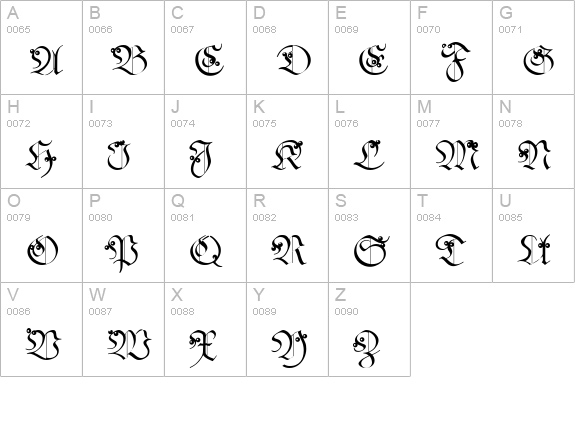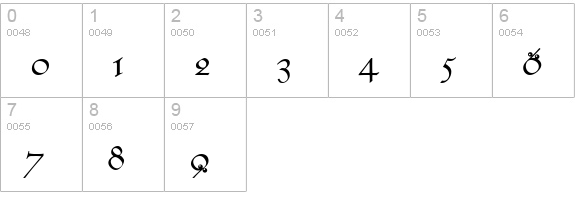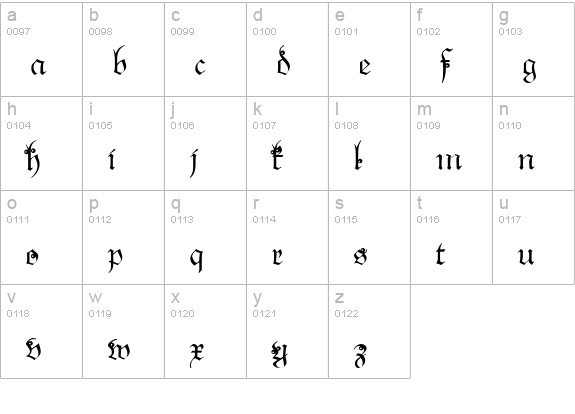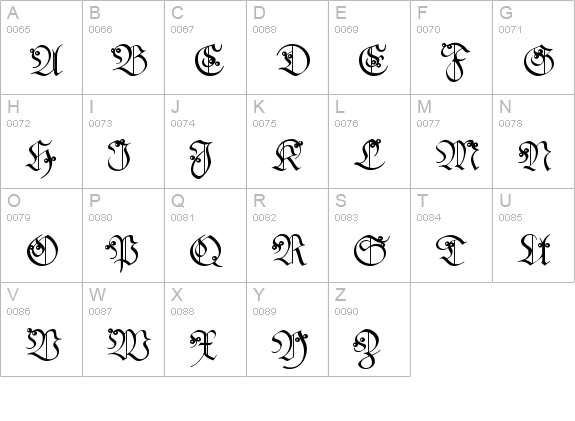
Introducing Snoutlike, a captivating and versatile font that will bring a touch of elegance and sophistication to your design projects. With its unique snout-like letterforms, this font stands out from the crowd, making a bold statement with every character. Snoutlike is the perfect choice for a wide range of applications, from branding and logos to invitations and headlines. Its clean and stylish design exudes a sense of modernity, while its subtle curves add a dash of playfulness. Whether you're looking for a font to elevate your website or to add a touch of professionalism to your printed materials, Snoutlike has got you covered. One of the best features of Snoutlike is that it is freely available to download at FontsMarket.com. That's right, you can enjoy the beauty and versatility of this font without spending a dime. Now you can create stunning designs without breaking the bank, making Snoutlike the perfect choice for designers, students, and anyone looking to add a touch of creativity to their projects. With a wide range of weights and styles, Snoutlike offers endless possibilities for customization. Whether you prefer a bold and attention-grabbing look or a more subtle and refined aesthetic, this font has the perfect option for you. And with its extensive language support, Snoutlike ensures that your message is conveyed seamlessly, no matter the audience. So why wait? Download Snoutlike today and unlock a world of design possibilities. With its captivating style, versatile nature, and the fact that it's freely available at FontsMarket.com, Snoutlike is a font that you simply can't afford to miss out on. Elevate your designs and leave a lasting impression with this stunning font.